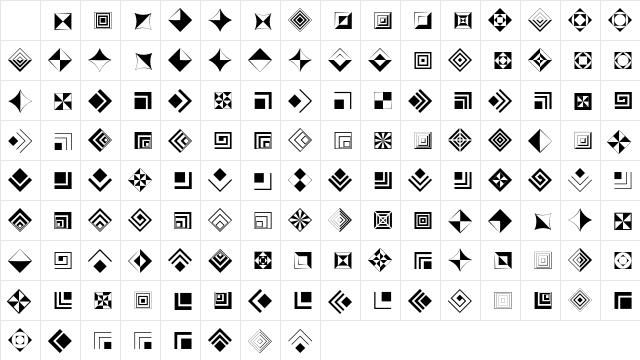
Complete Altemus Squares glyph index. Displaying only characters natively supported by Altemus Squares font.
Altemus is a composed and adaptable typeface that performs quietly and consistently across a wide range of design contexts.